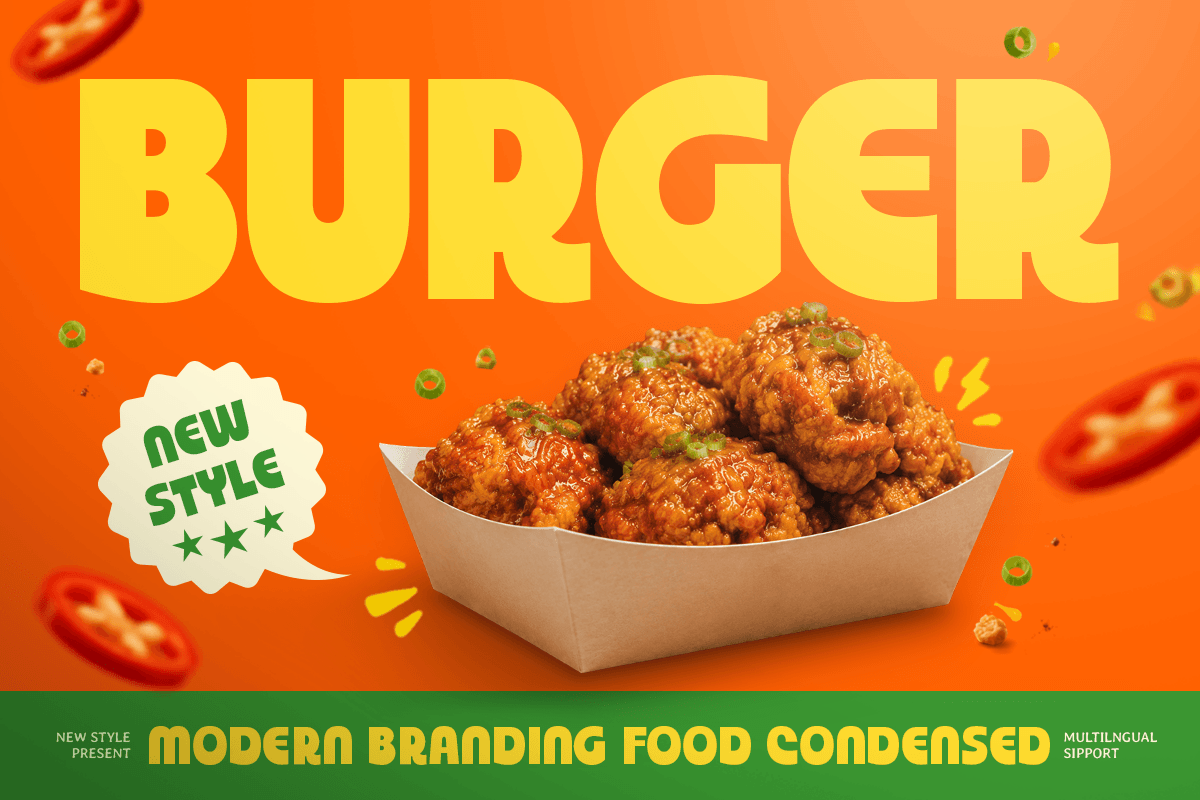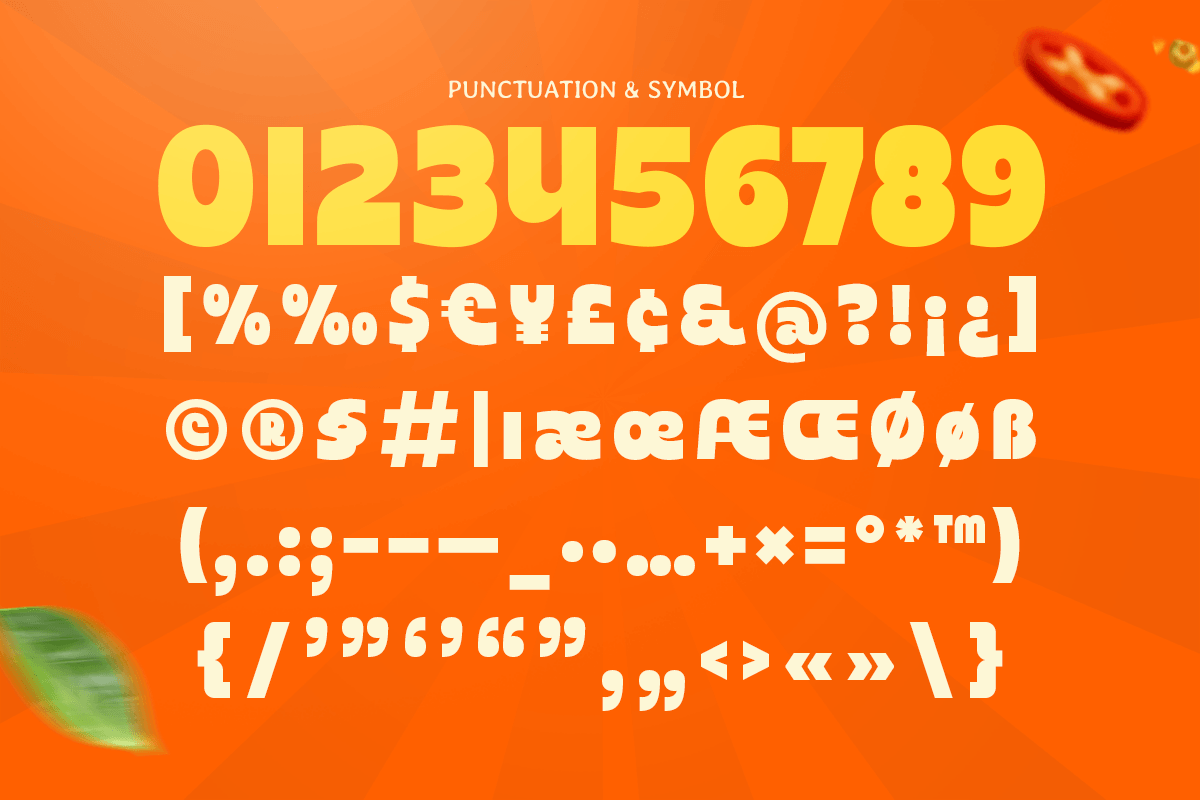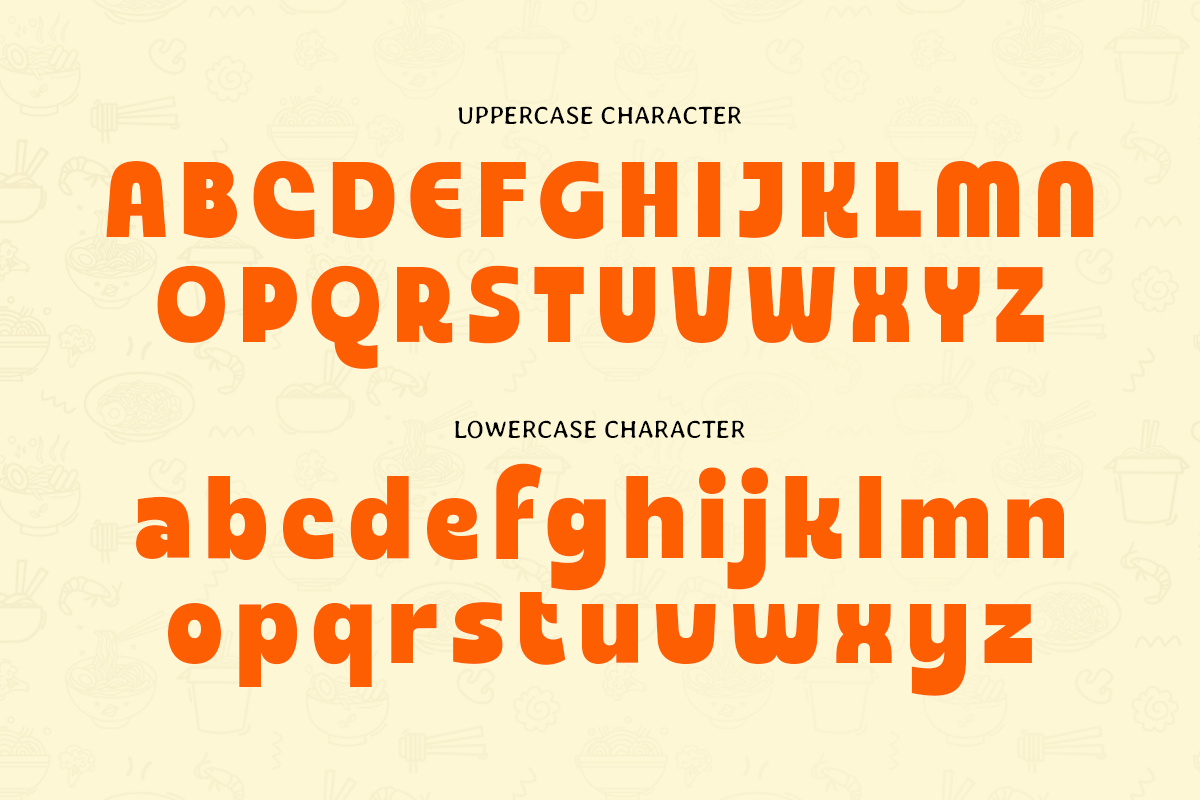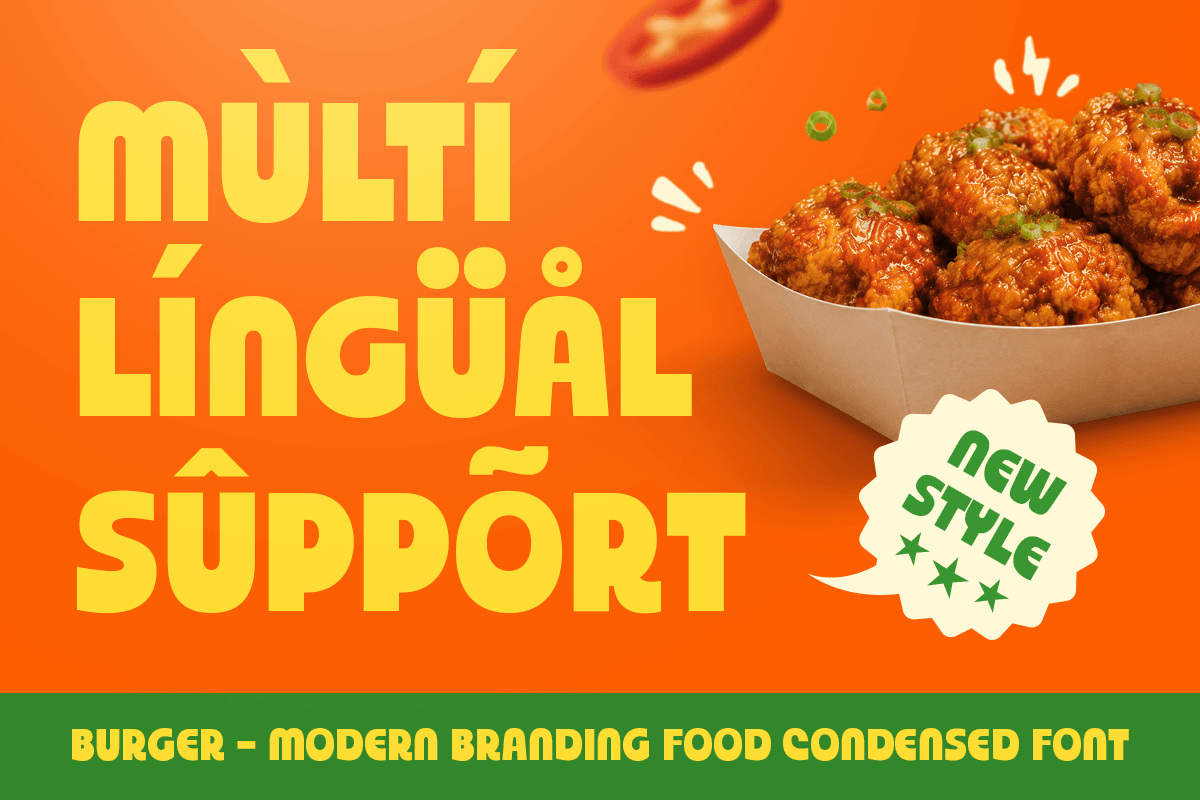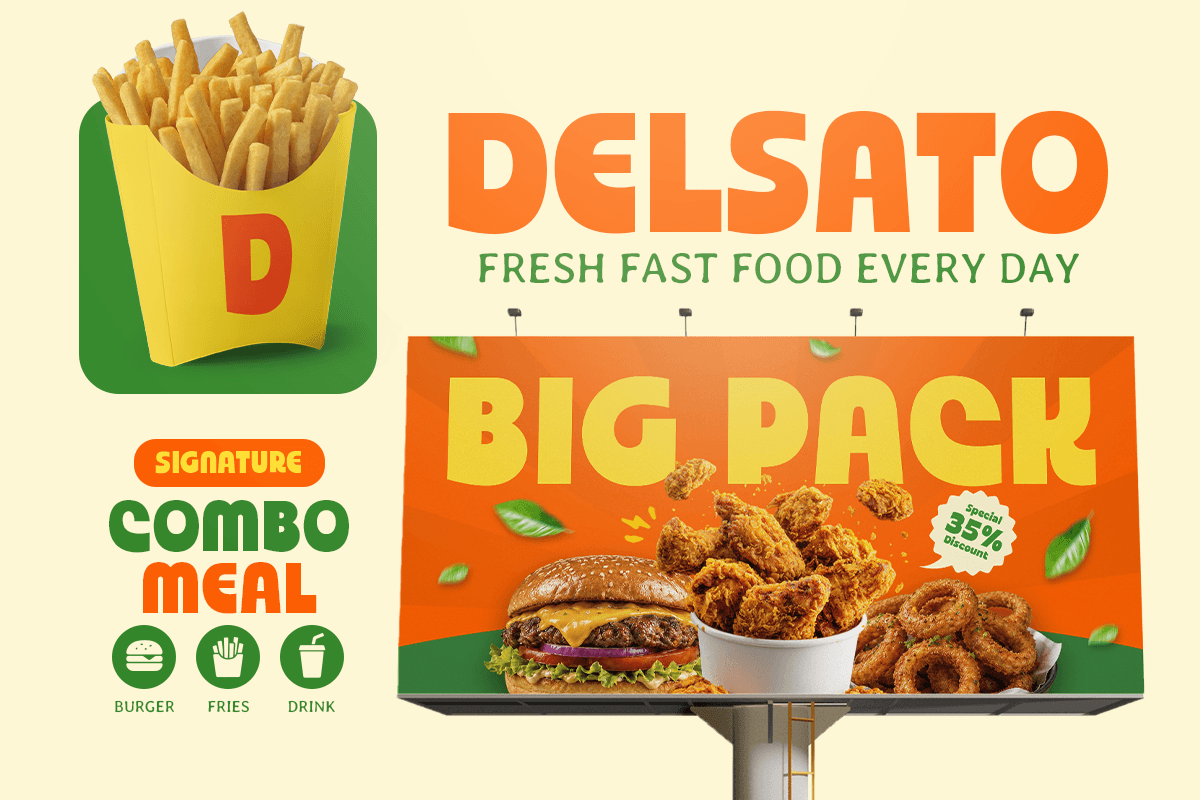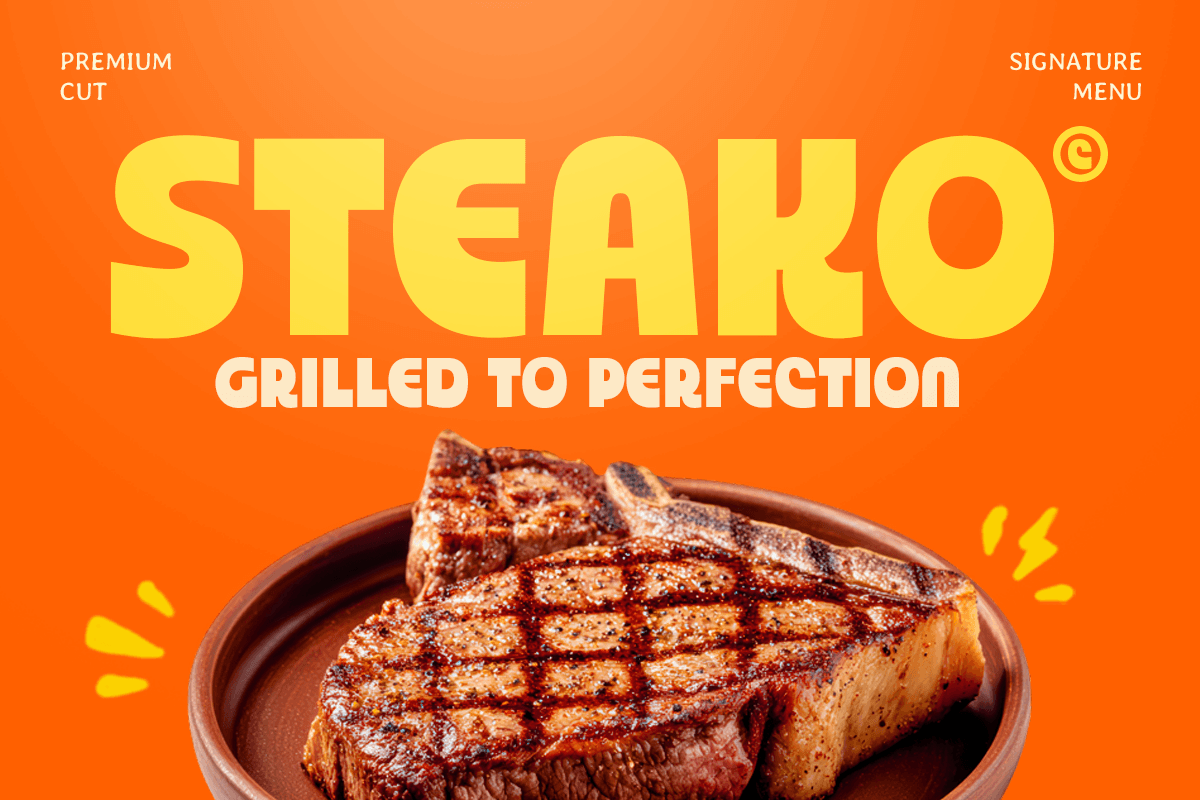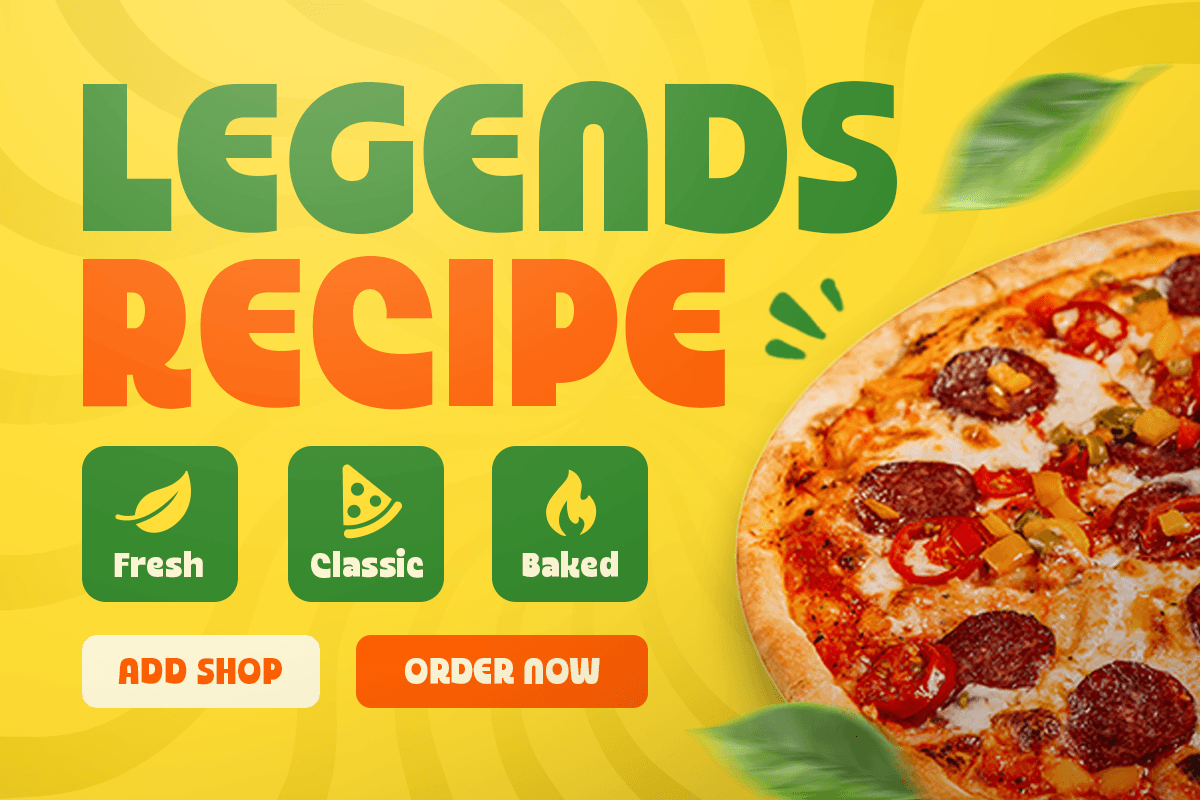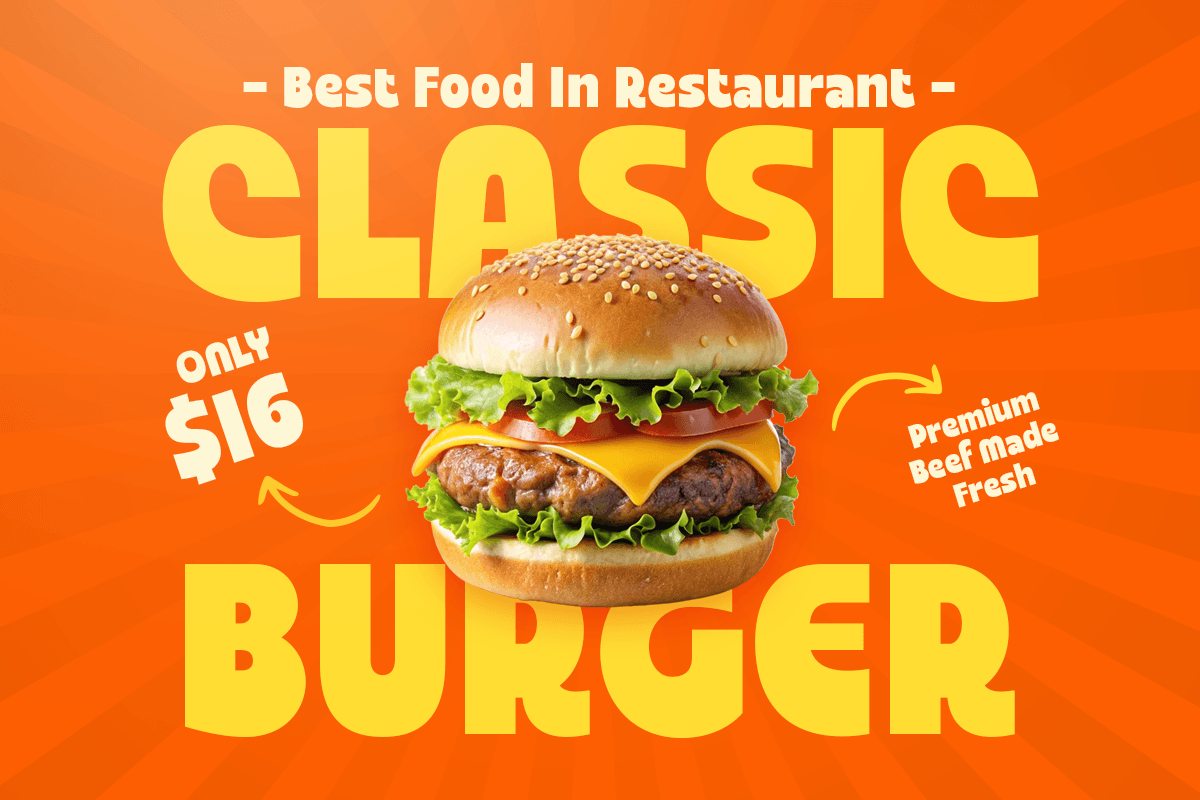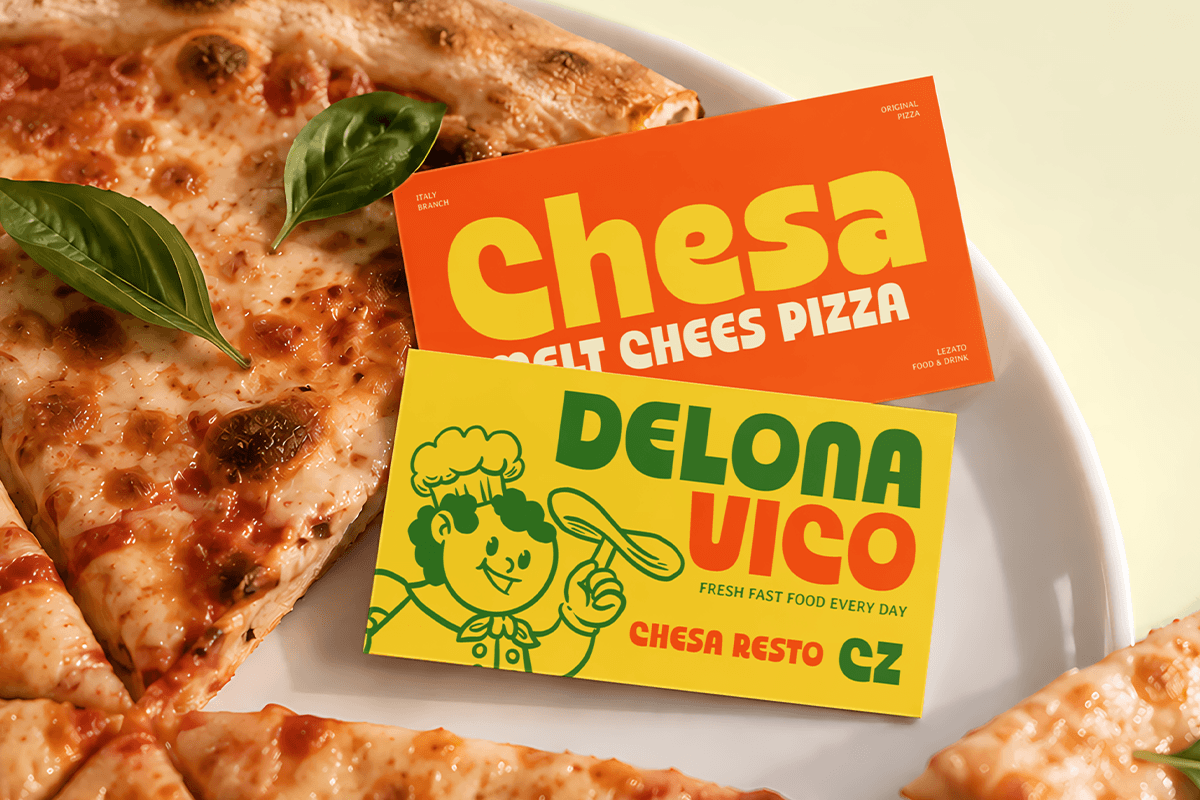
Burger – Modern Branding Food Font
Burger is a modern branding food font designed with bold shapes, friendly proportions, and an appetizing visual personality. Its playful display style gives every word a warm, delicious, and approachable character, making it ideal for food-focused brands that want to stand out.
Perfect for restaurant logos, burger shops, cafes, snack brands, food trucks, menus, packaging, signage, posters, and social media promotions, Burger brings a strong identity to both digital and print projects. Its modern food branding style works especially well for casual dining, fast food, beverages, desserts, and youthful culinary concepts.
With its memorable letterforms and confident presence, Burger is a versatile choice for designers creating logos, brand identity, product labels, promotional graphics, web banners, and advertising. It combines playful personality with commercial impact for modern food packaging and restaurant branding.
Burger – Modern Food Branding Font Features
- Bold and friendly food-inspired letterforms
- Modern display style for memorable branding
- Perfect for restaurants, cafes, food trucks, and snack brands
- Ideal for logos, menus, packaging, posters, and signage
- Includes uppercase, lowercase, numerals, and punctuation
- Great for digital and print design projects
- Works well for social media, advertising, and promotions
- Strong visual personality for playful food branding
Multilingual Support